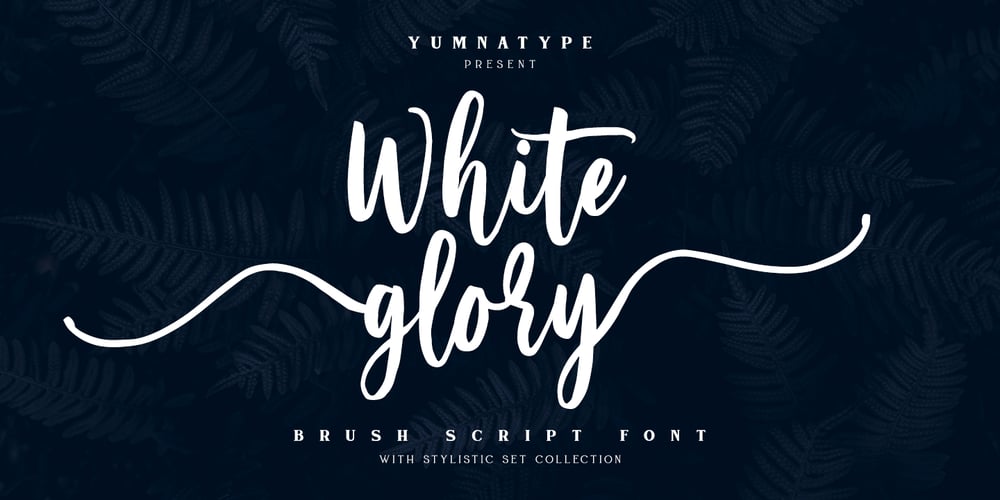
White Glory
White Glory font
White Glory Font Family was designed by Ditya Dewi Anandita and published by Yumna Type. White Glory contains 1 styles and family package options. White Glory is a beautiful brush font. The texture from this natural brush font will make your design more beautiful and powerful. This font is suitable for any design like branding, quotes, t-shirt printing and more.Features: Accents (Multilingual Characters) 104 beautiful stylistic alternates PUA encoded Numerals and punctuations (OpenType standard) Design by yumnatype